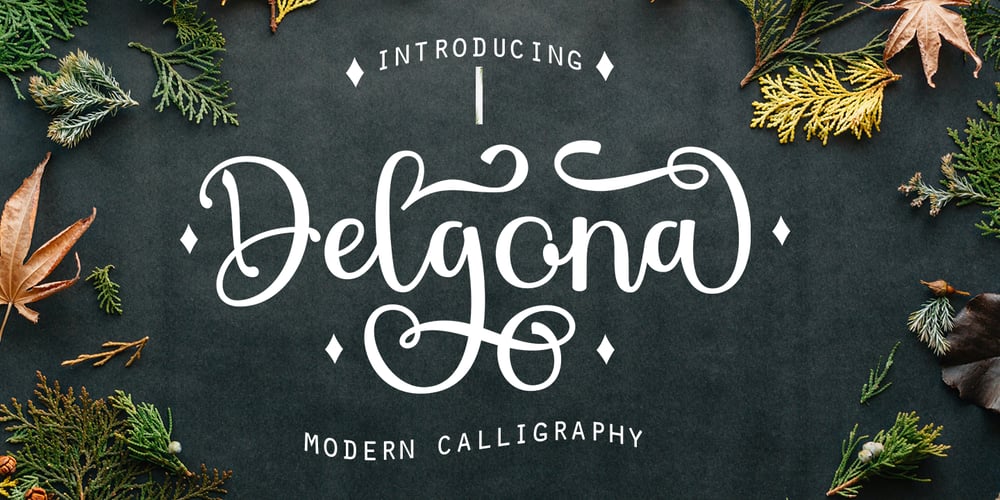
Delgona Font Family was designed by Teuku Bustami and published by TM Type. Delgona contains 1 styles and family package options. Delgona is a delicate and fashionable script font. It is perfect for any branding project such as logos, t-shirt printing, creative products, and more. This font is PUA encoded which means you can access all of the glyphs and swashes with ease.